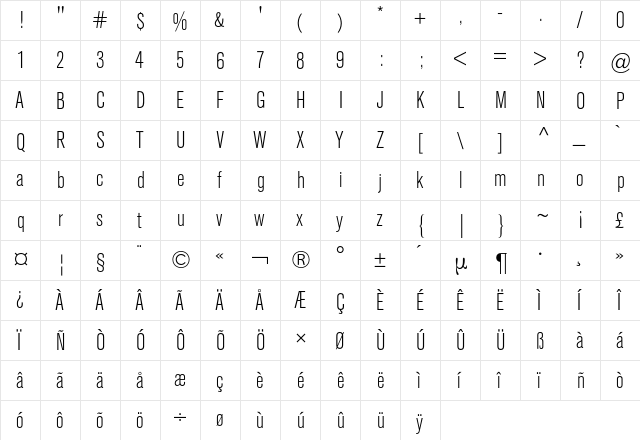
Akzidenz-Grotesk Condensed BQ Regular Font Preview
Akzidenz-Grotesk Condensed BQ Regular
Akzidenz-Grotesk Condensed BQ Regular Font Details
Design Context for Akzidenz-Grotesk Condensed BQ Typeface
Akzidenz-Grotesk Condensed BQ has the quiet confidence of well-executed sans-serif typography: versatile, unobtrusive, and dependable at any size. Its narrow stance lets it pack a punch even in space-constrained designs.
Font Pairing: Works well alongside a characterful serif or display font that can carry the expressive load while Akzidenz-Grotesk Condensed BQ handles the functional copy.
Pro Tip: Use Akzidenz-Grotesk Condensed BQ tightly set in headlines and banners — its condensed proportions make it ideal for maximum impact in minimum horizontal space.